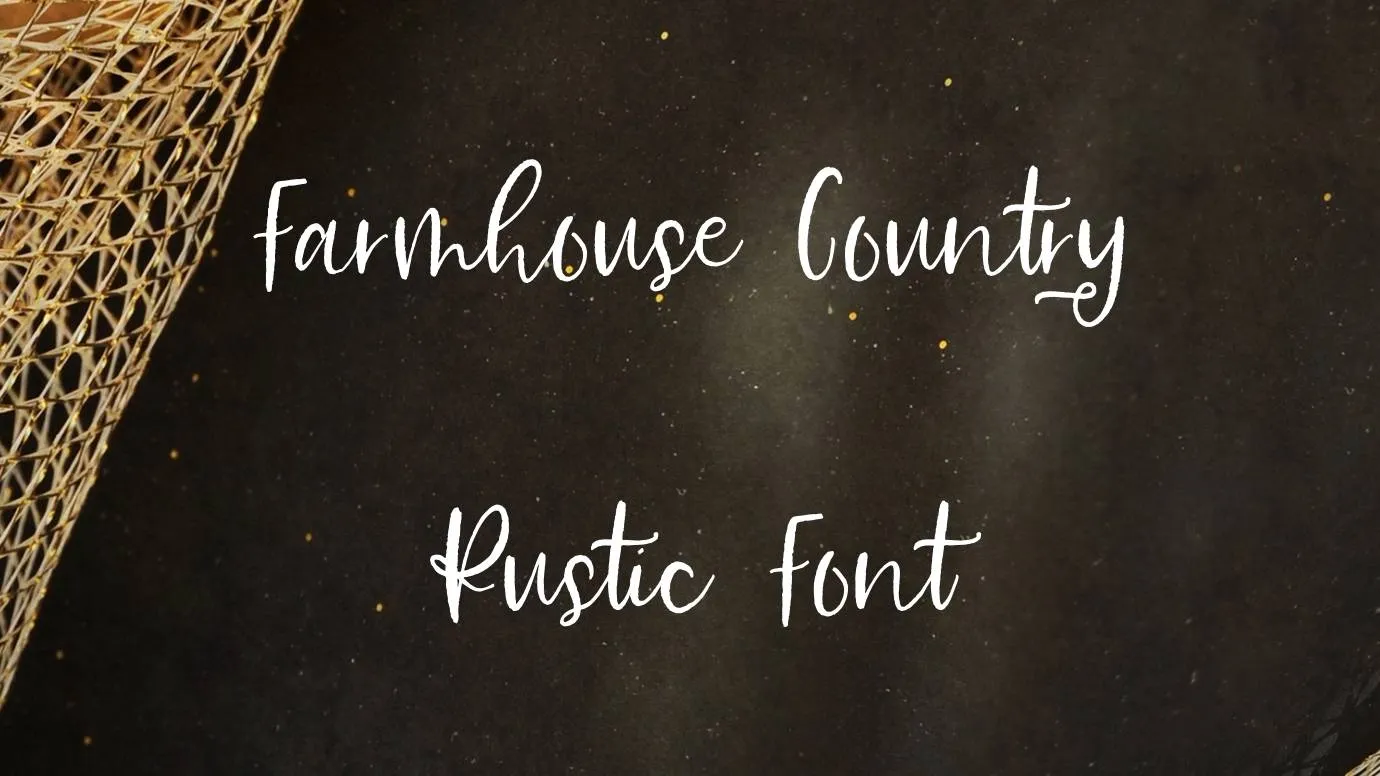
Farmhouse Country Rustic Font presents a fresh script typeface crafted by the renowned font creator, BeckMcCormick. This elegant font, also referred to as country rustic, features over one hundred charming characters, encompassing uppercase letters.
This typeface has wonderful look letters, that’s why its popularity increasing day by day. It is also perfect for making the paring with another script font such as Shella Clean Font.
| Name | Farmhouse Country Rustic Font |
| Type | Script |
| Designer | BeckMcCormick |